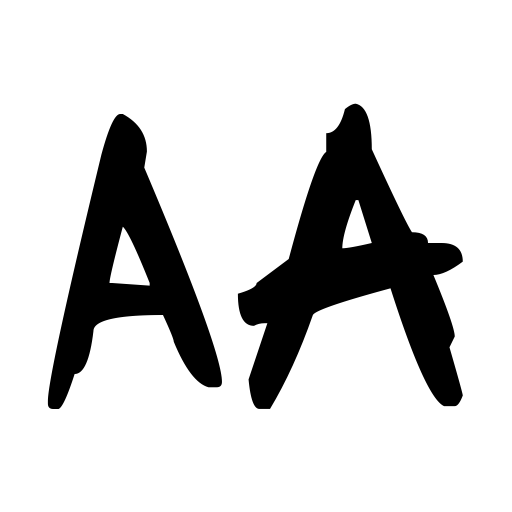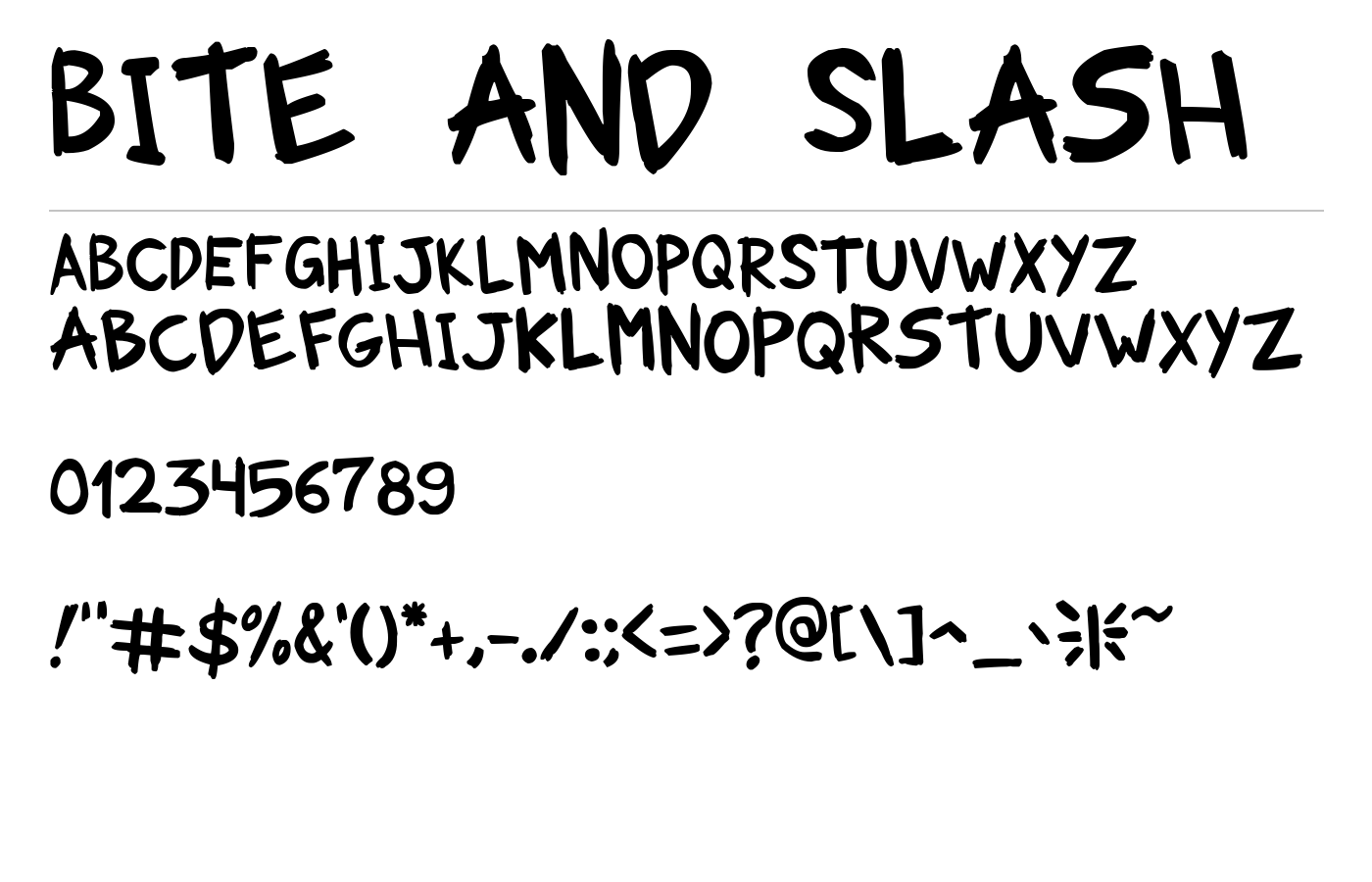
Bite and Slash is a bold, playful handwritten sans serif font with irregular, energetic strokes that give it a lively and informal feel. Its casual style and uneven letter shapes make it ideal for fun, creative projects such as posters, comics, or branding aimed at a youthful audience. This font works well where a quirky, hand-drawn touch is needed to convey friendliness and spontaneity.
| Font family | Bite and Slash Font |
| Designer | Aryel Filipe |